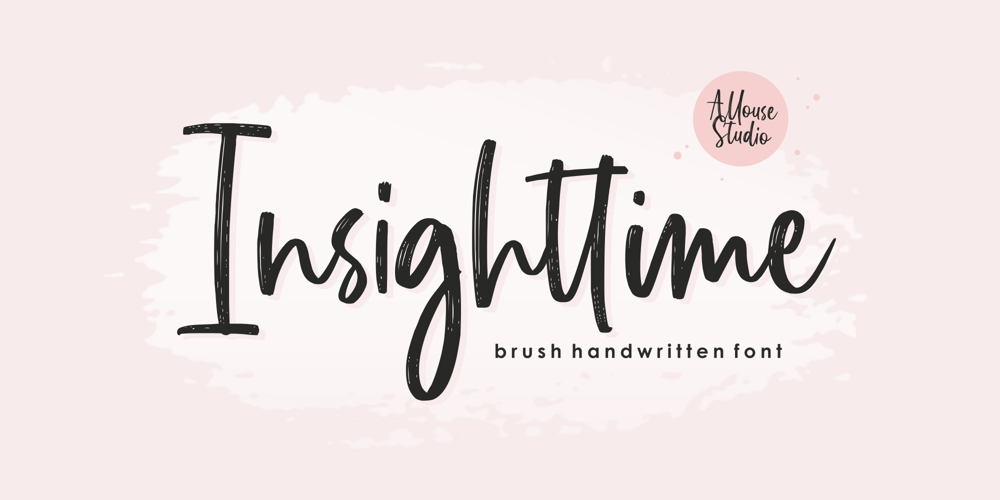
Insighttime Font Family was designed by Fachrizal Yusuf and published by Allouse Studio. Insighttime contains 1 styles and family package options. Proudly Presenting, Insighttime A Brush Handwritten Font.Insighttime is perfect for any titles, logo, product packaging, branding project, megazine, social media, wedding, or just used to express words above the background.Insighttime also come with Multi-Lingual Support.Enjoy the font, feel free to comment or feedback, send me PM or email. Thank You!